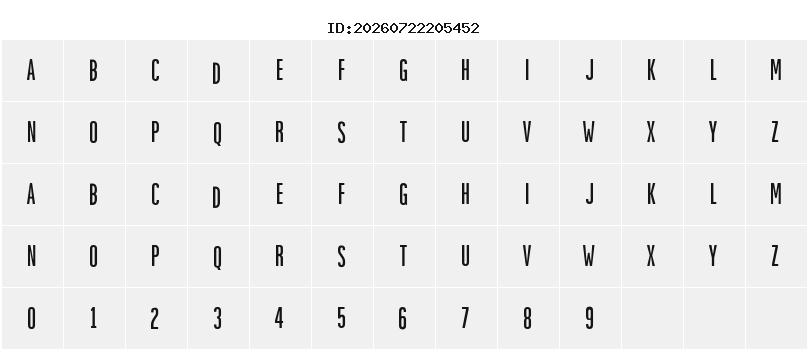
• Font Name: Mundane Gothic
• Designer: HENRIavecunK
• Description: Mundane Gothic Regular is a font designed by HENRIavecunK in 2016.
About Mundane Gothic.ttf
Mundane Gothic.ttf is a modern, elegant sans-serif font designed for ultimate readability and visual harmony. Perfect for branding, headlines, web design, and print materials.